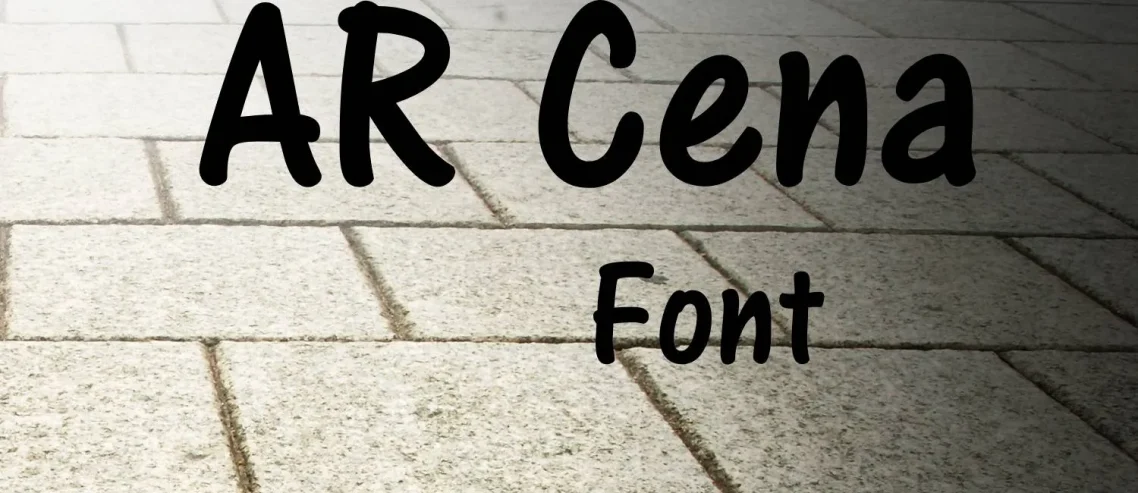
Zuzana Licko in Sans Serif May 20, 2022 0 Comments AR Cena Font Free Download AR Cena font is a typeface designed by Cosimo Lorenzo Pancini, Andrea Tartarelli, and Manuela Udine. It was published by FontShop International in 2014. The design is based on the lettering of Italian comic books from the 1960s and 1970s.
This font is a sans serif font that is intended for headlines and short passages of text. It is available in six weights, from thin to black, and features a wide range of open-type features including ligatures, alternates, and small caps. This typeface is very close to the Preface Sans Serif Font.
View of AR Cena Font
AR Cena Font Info
| Name | AR Cena Font |
| Designer | Cosimo Lorenzo Pancini, Andrea Tartarelli, and Manuela Udine |
| Style | Sans-Serif |
Font Family
- Cena Extra Light
- Cena Extra Light Italic
- Cena Light
- Cena Light Italic